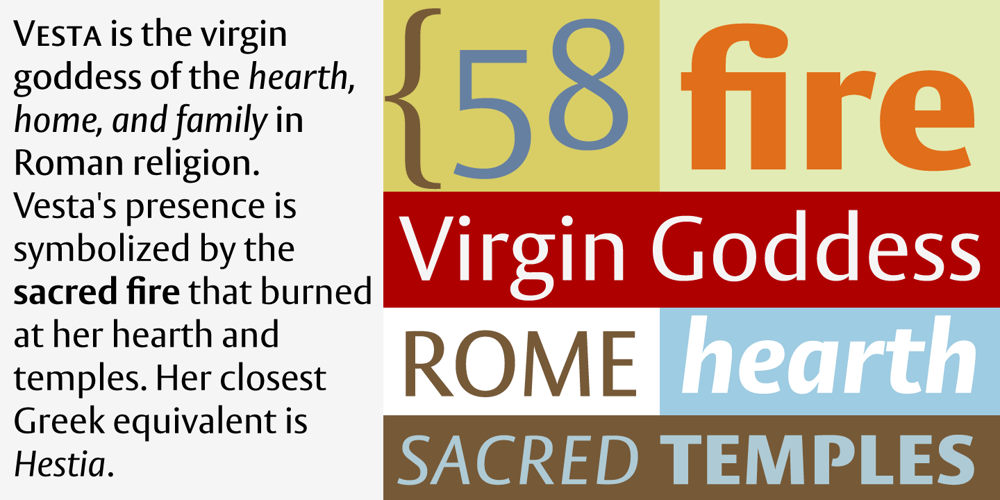
Vesta
Vesta font
Vesta Font Family was designed by Gerard Unger and published by Linotype. Vesta contains 14 styles and family package options. In the late 1990s Gerard Unger won the assignment to design the signage system for the Holy Year celebrations to be held in Rome in 2000. The system he developed in cooperation with the design agency n|p|k used a classically inspired serif typeface, but the earlier proposals included a sans-serif, which became Vesta (2001). Vesta is a versatile family that can be used as a display face alongside Unger’s serif faces Gulliver, Capitolium or Coranto; it can also be used on its own, even in longer texts. Vesta is narrower and therefore more economical than some commonly used sans serifs such as Arial and Helvetica; there is also a noticeable contrast between thick and thin parts, which makes it more lively. Vesta is to be extended with narrow versions, small capitals and old style numerals, along with some special versions for headlines.